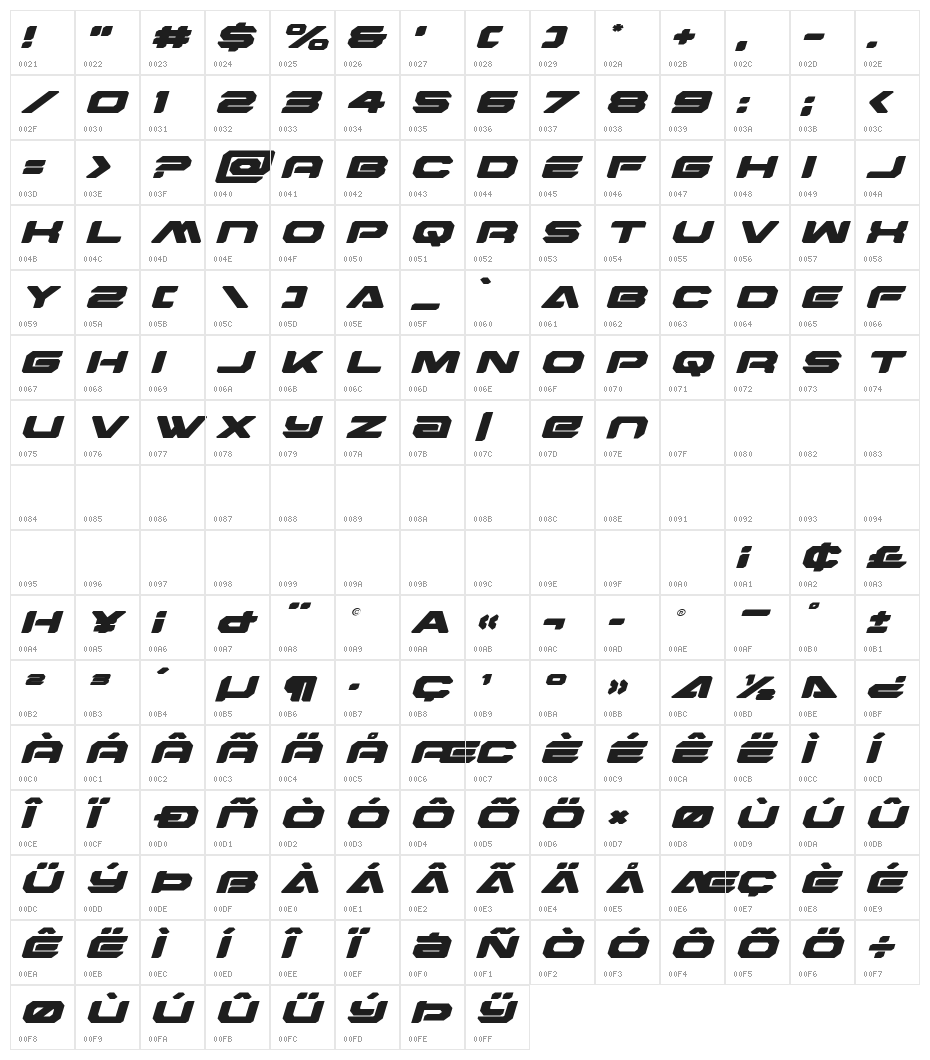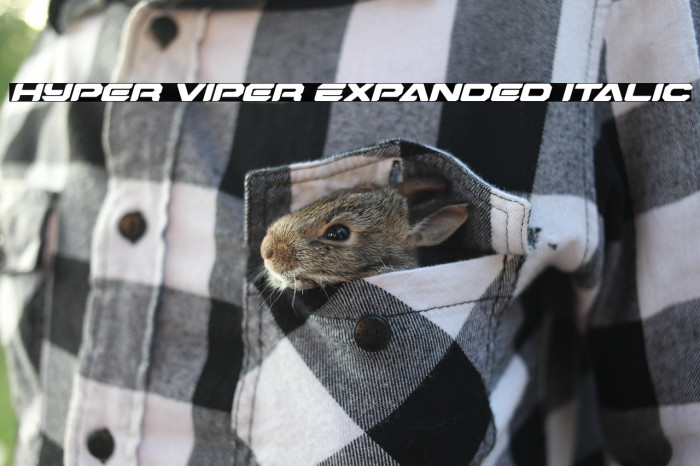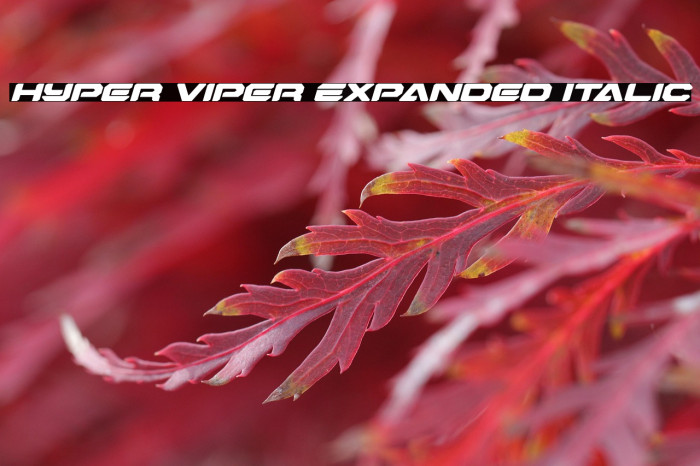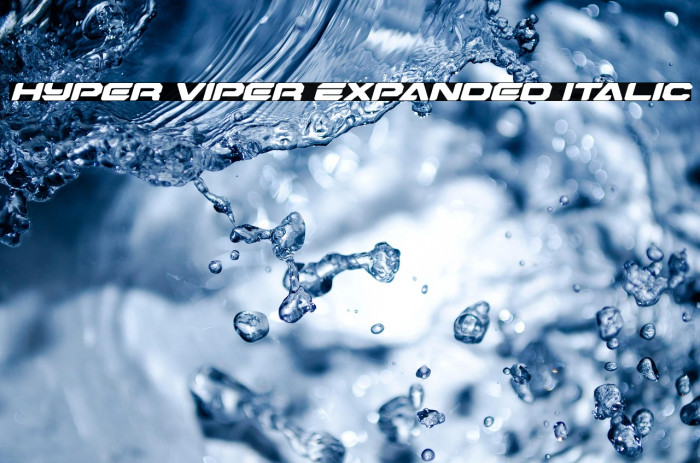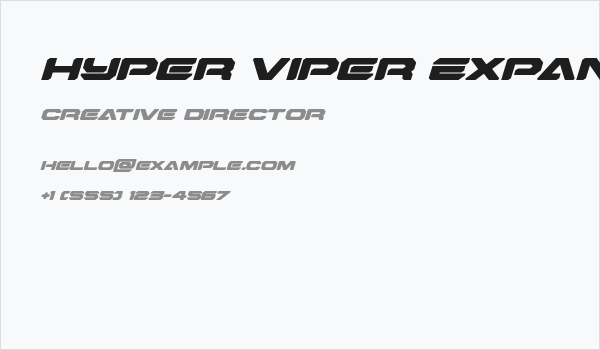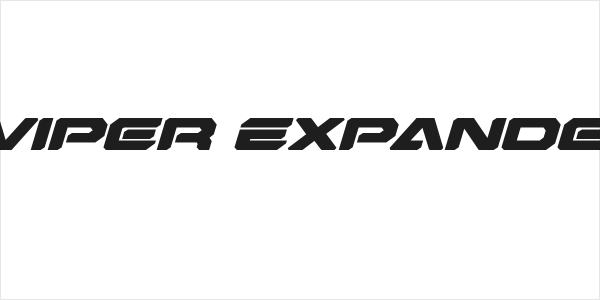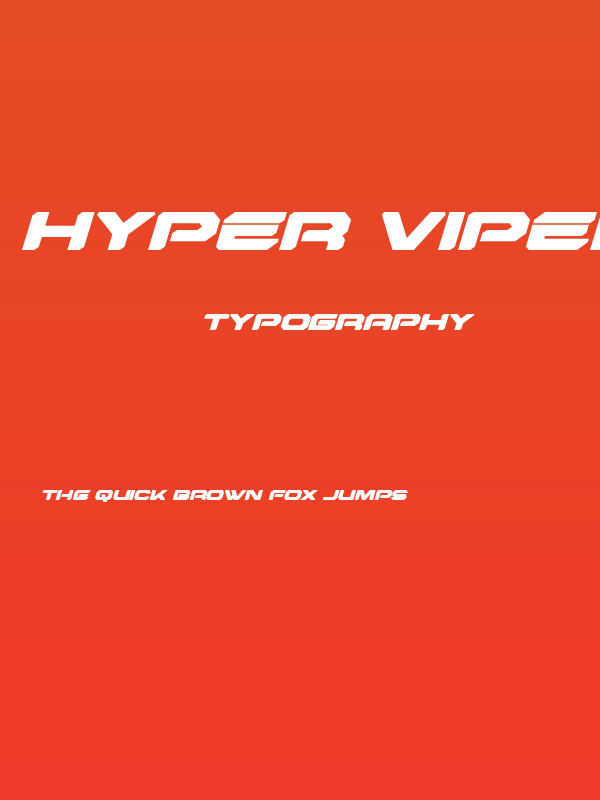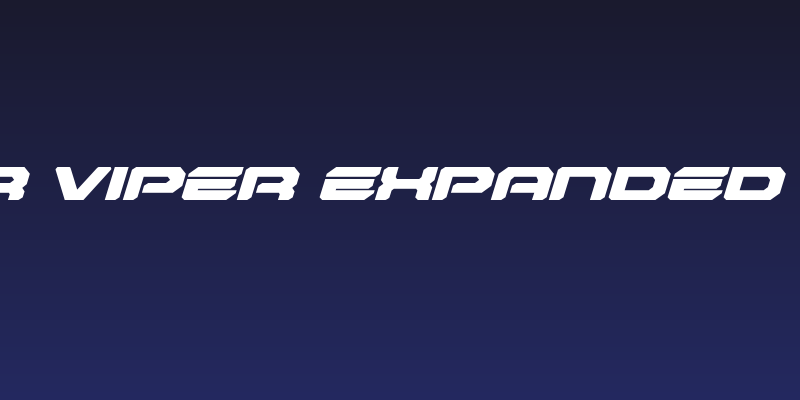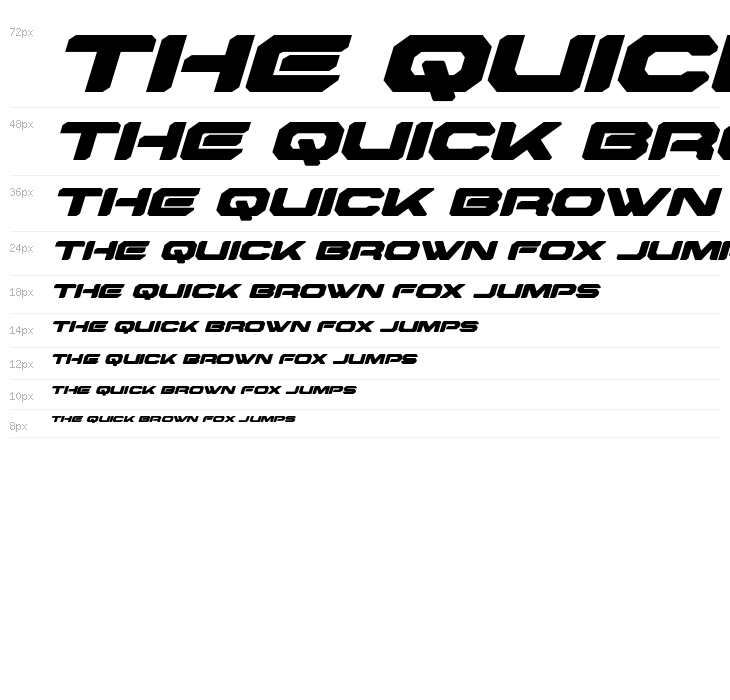
Hyper Viper Expanded Italic Font
Hyper Viper Expanded Italic Description
This font features a bold, futuristic design with an expanded and italicized style. The characters are sharply angled, giving a sense of speed and motion. The uppercase and lowercase letters maintain a consistent geometric form, while the numbers and special characters complement the overall aesthetic. The strokes are thick and uniform, contributing to a strong visual impact. This font is ideal for projects that require a modern and dynamic appearance.
| Proposed Projects | Ideal for sci-fi themed designs, video game titles, sports branding, and dynamic posters. |